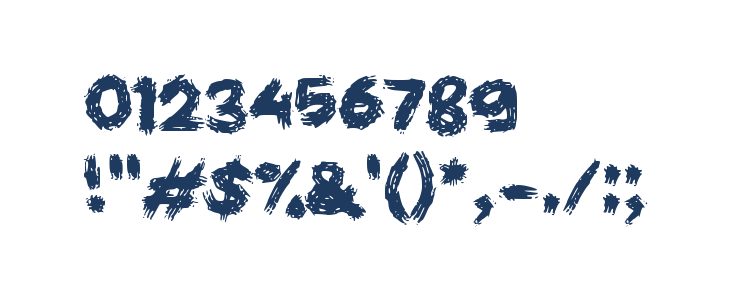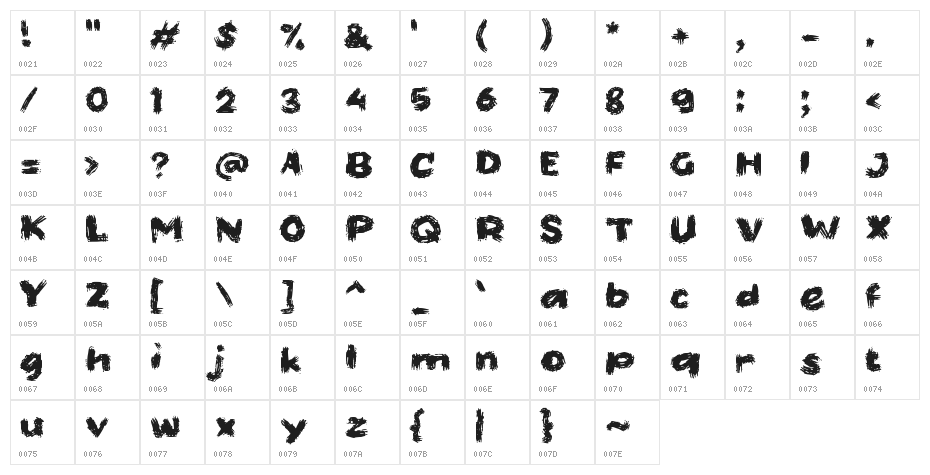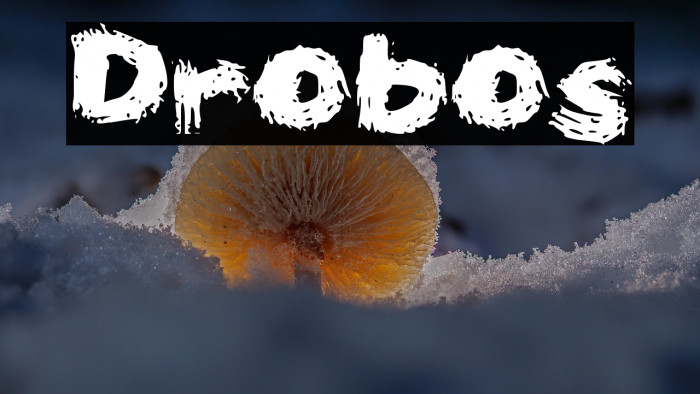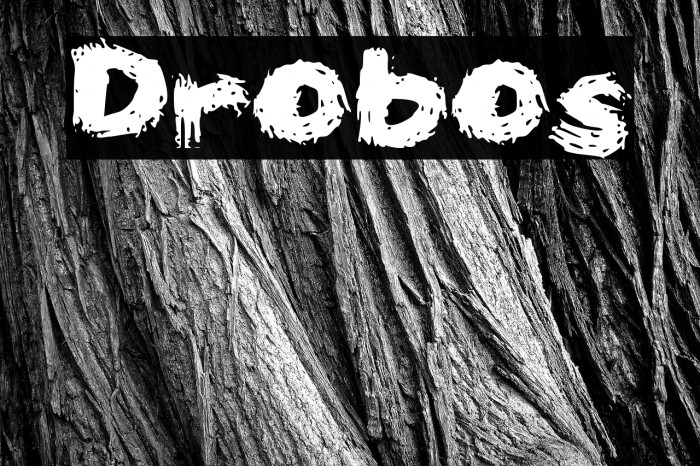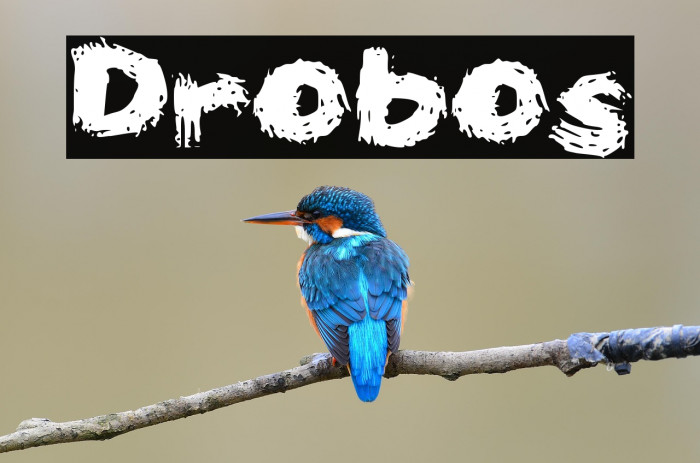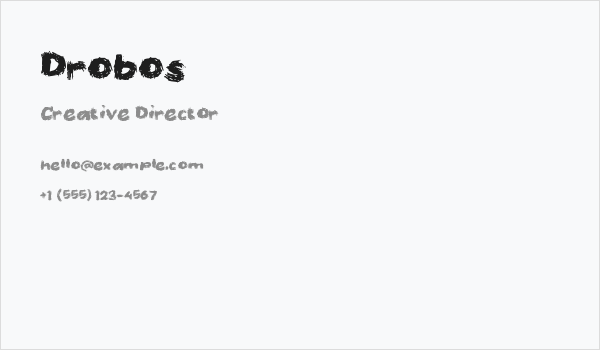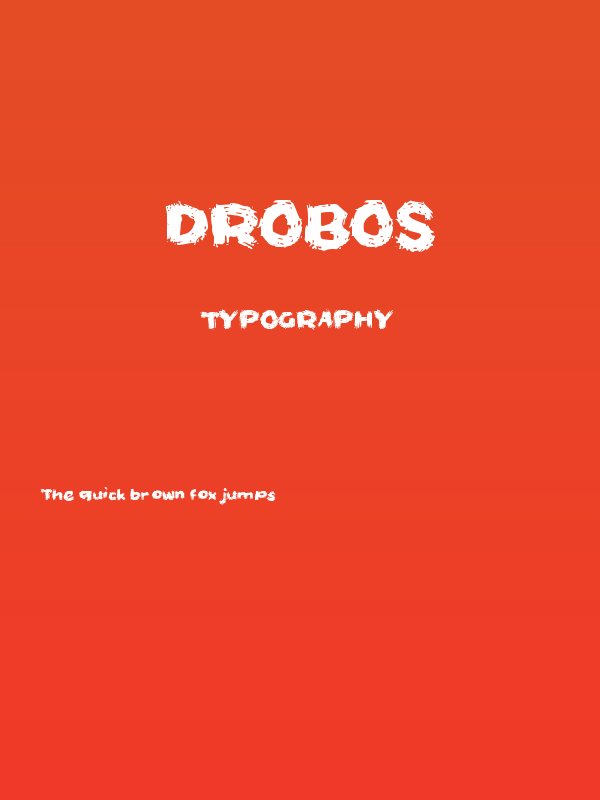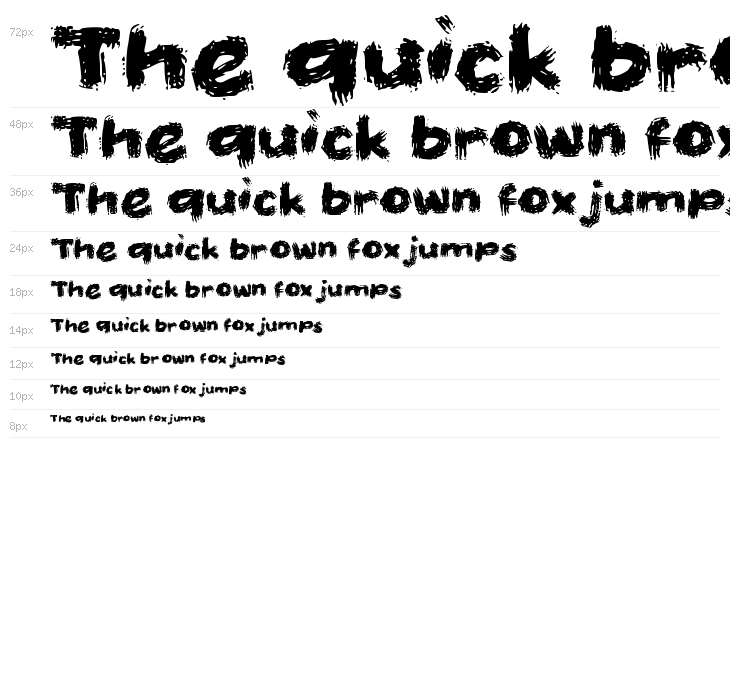
Drobos Font
Drobos Description
This font exhibits a bold, distressed style with a brush-like texture, giving it a rugged and dynamic appearance. The characters are irregular and appear hand-painted, with uneven edges and varying stroke thicknesses that add to its raw, artistic feel. The uppercase and lowercase letters maintain a consistent style, while the numbers and special characters follow the same textured pattern. This font is highly decorative and stands out due to its unique, expressive design.